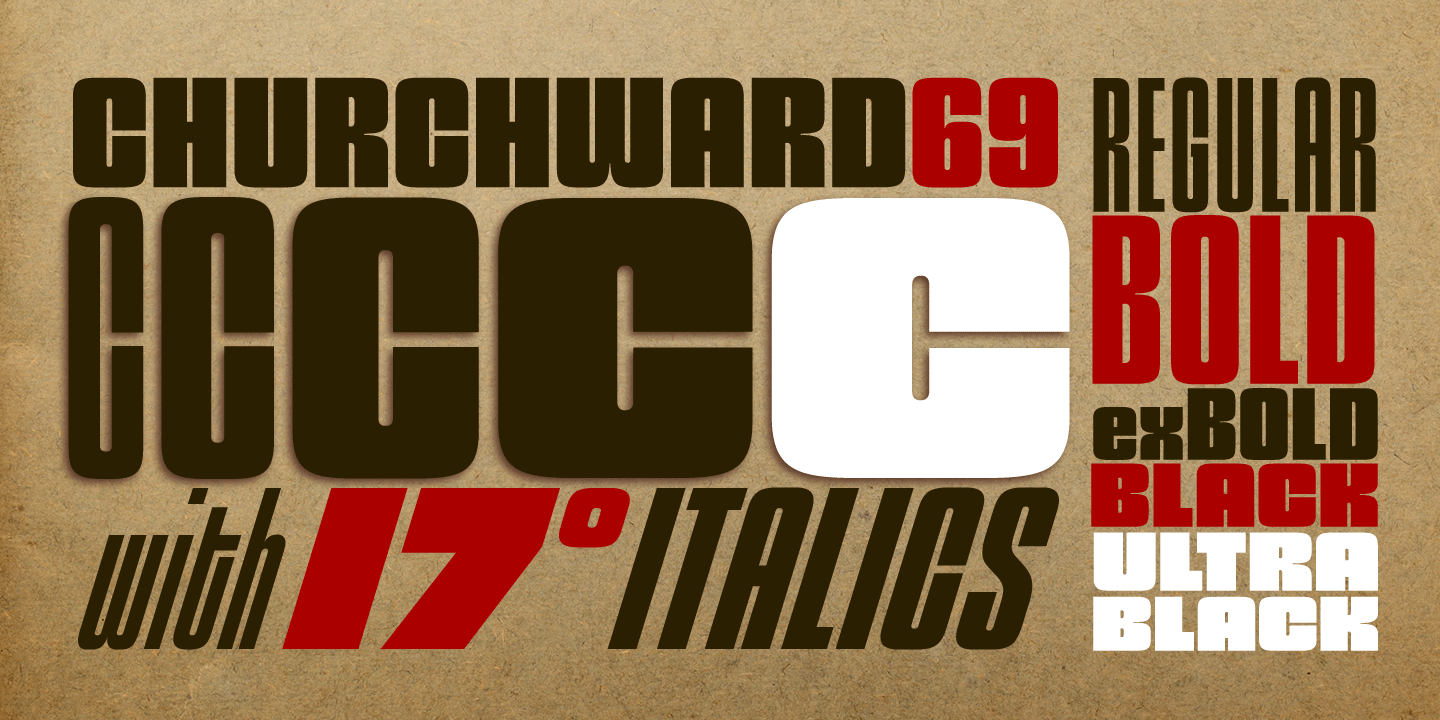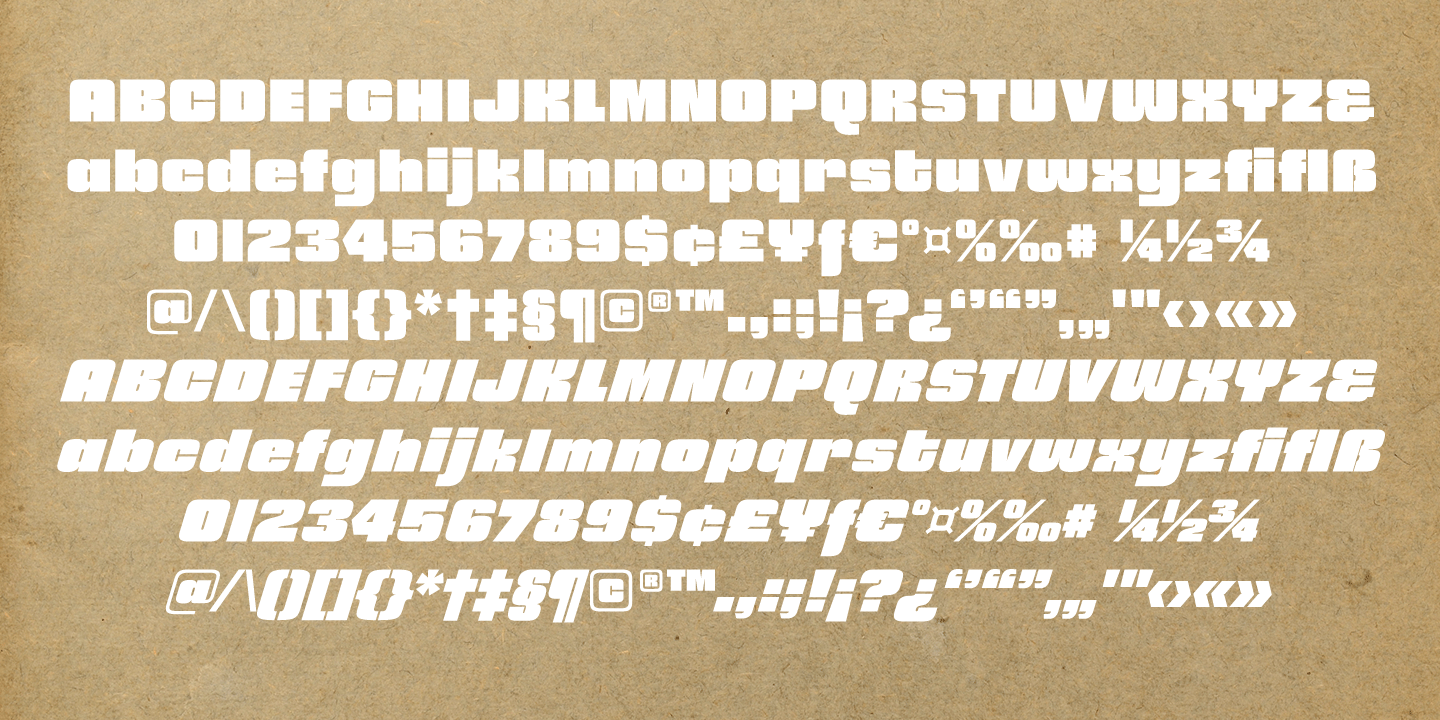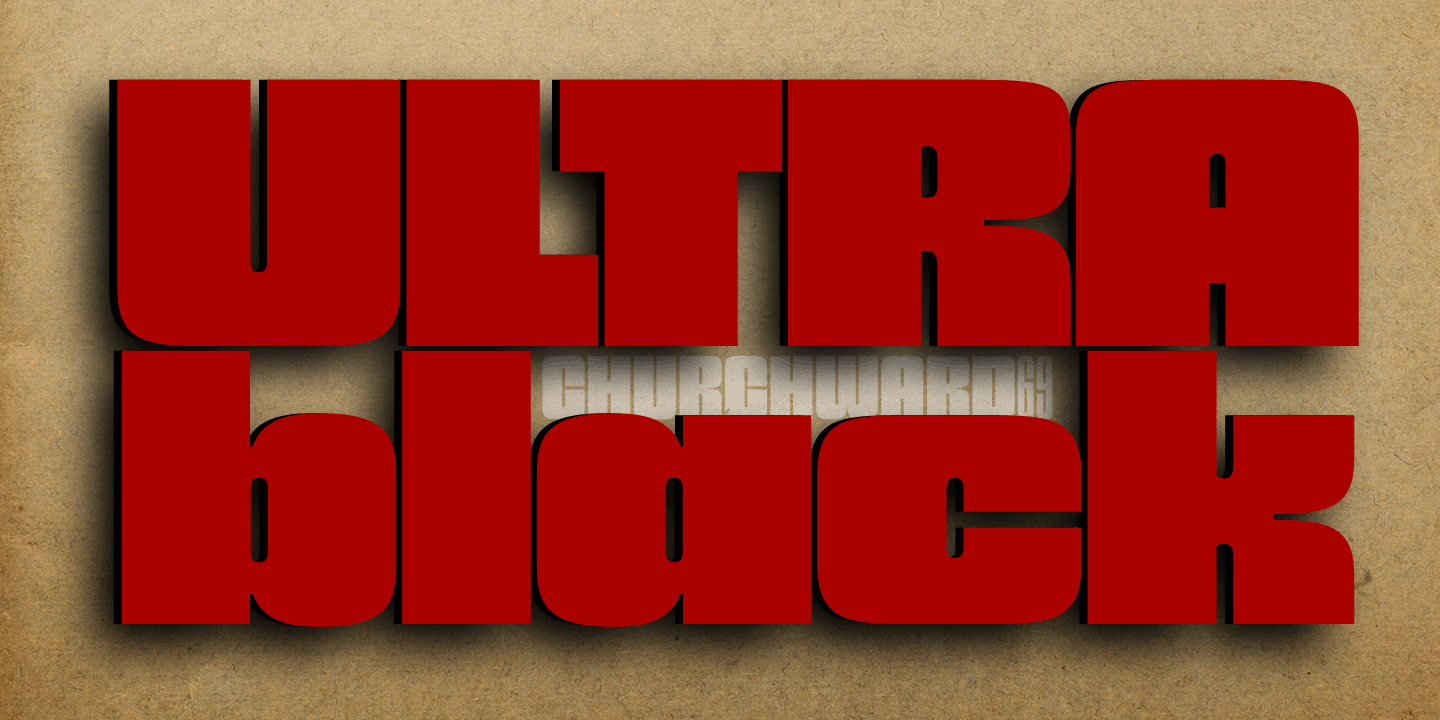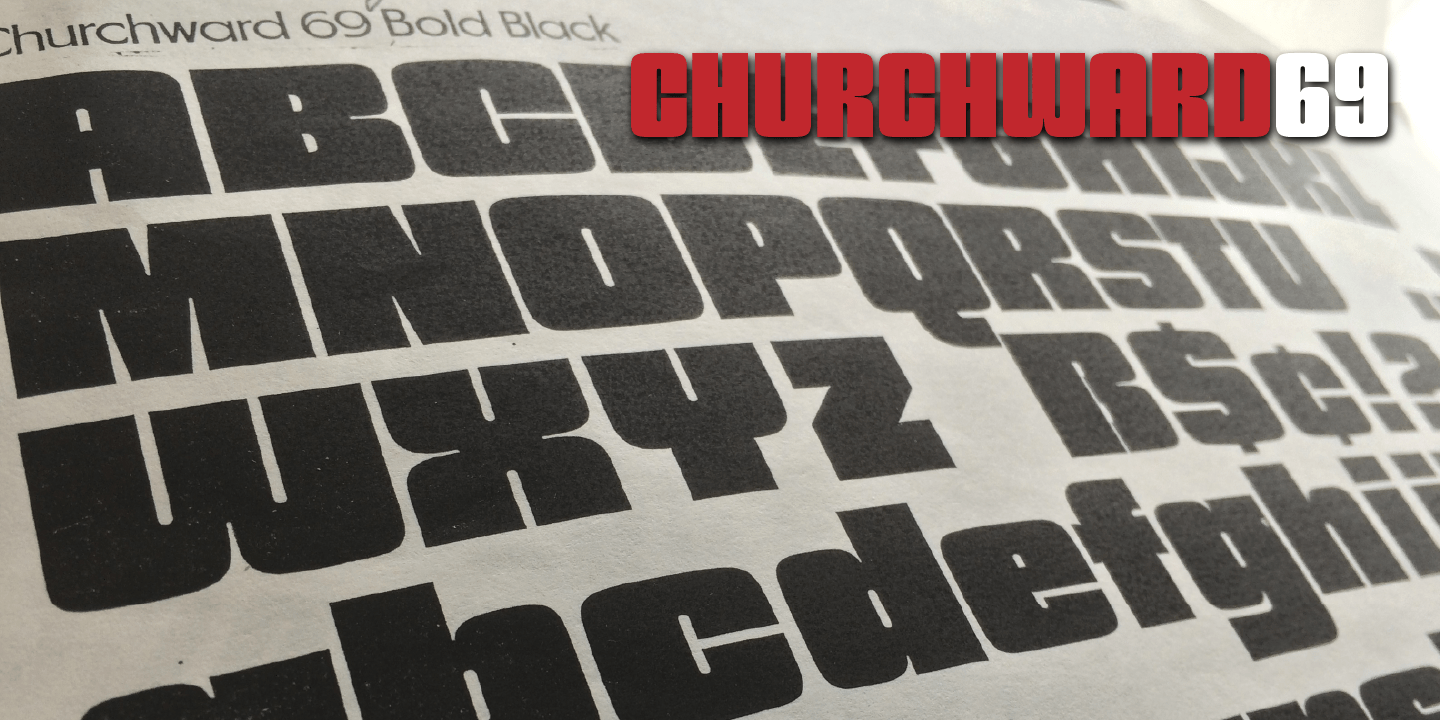
Churchward 69 Ultra Black Italic
Churchward 69 Ultra Black Italic is part of a ten weight typeface family originally designed during the late 1960's by the late type designer Joseph Churchward. It's a gorgeous example of Churchward's innate talent for drawing heavy weights. And like the other italics in this family, it is an insanely 17 degree slant! Ultra Black Italic is a must-have for display work and headlines! Churchward 69 Ultra Black Italic includes OpenType features for superior and inferior figs, fractions, and tabular/proportional figure sets, and it supports an extended European character set.